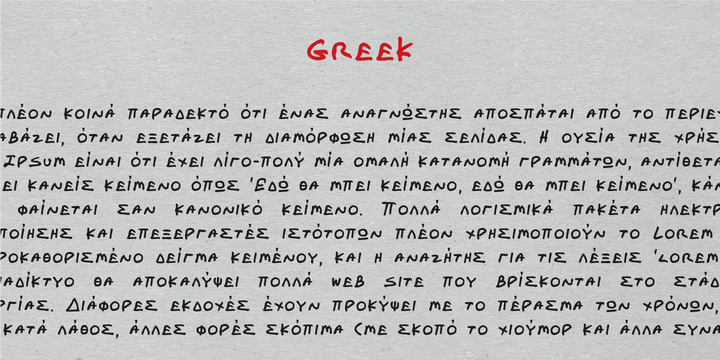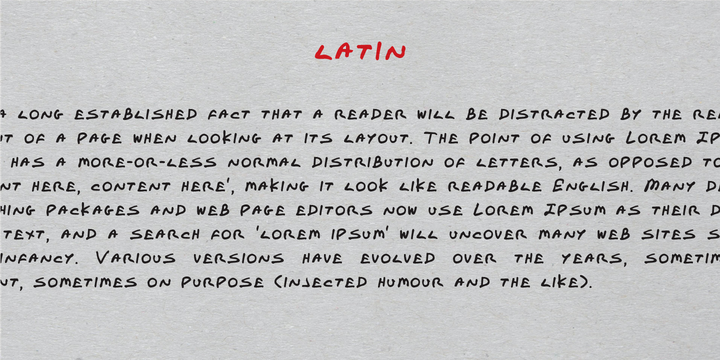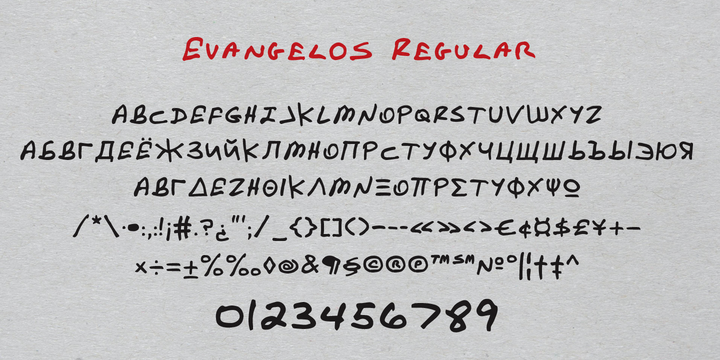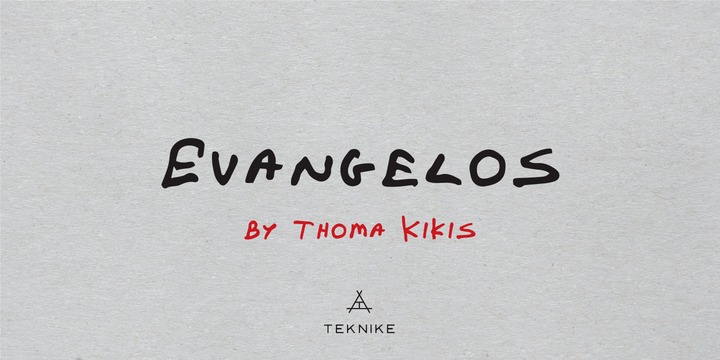
My inspiration for this font was my father. He was a puzzle toy inventor and as a child he showed me how to write in capitals and this font is an homage to his handwriting style.